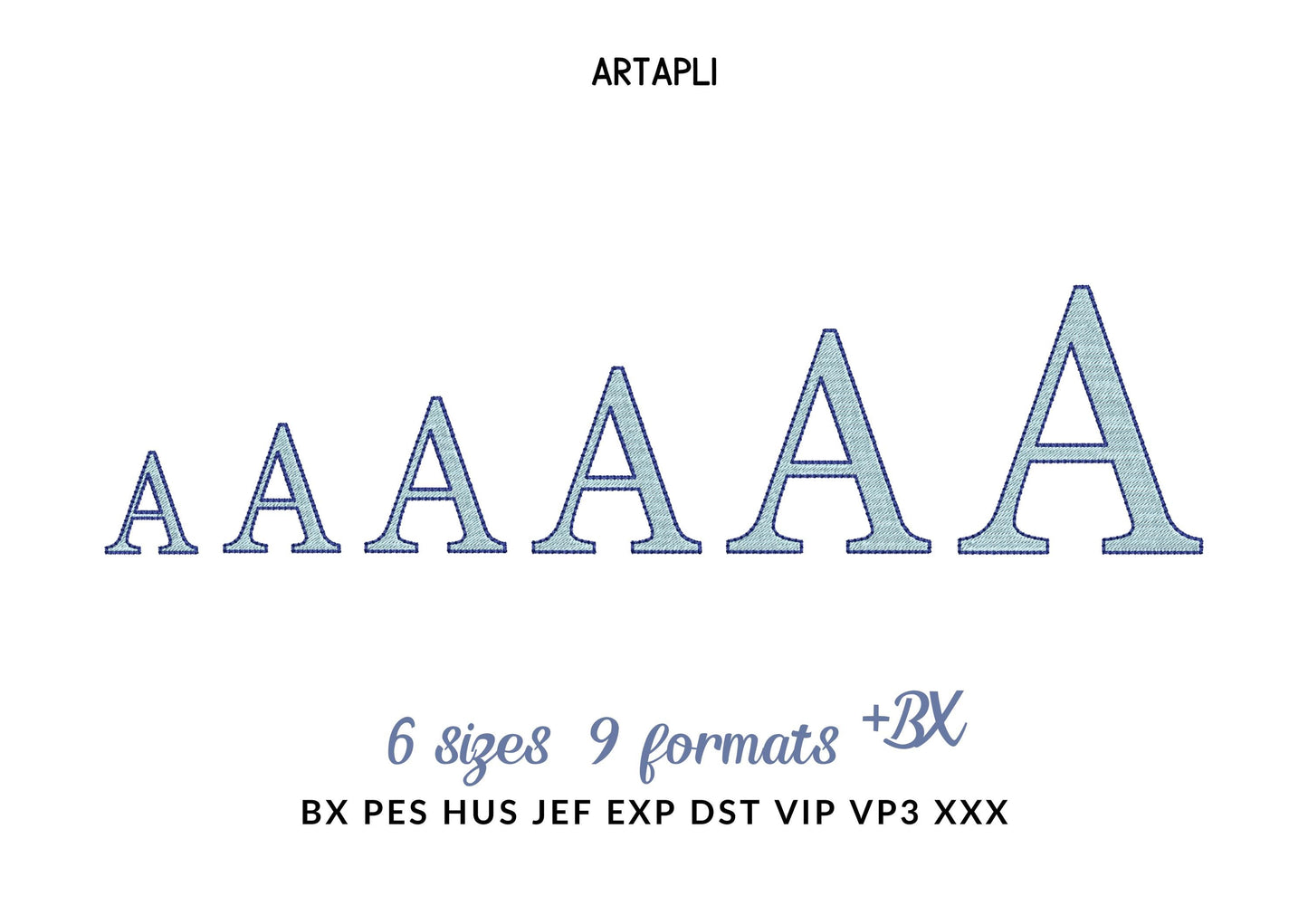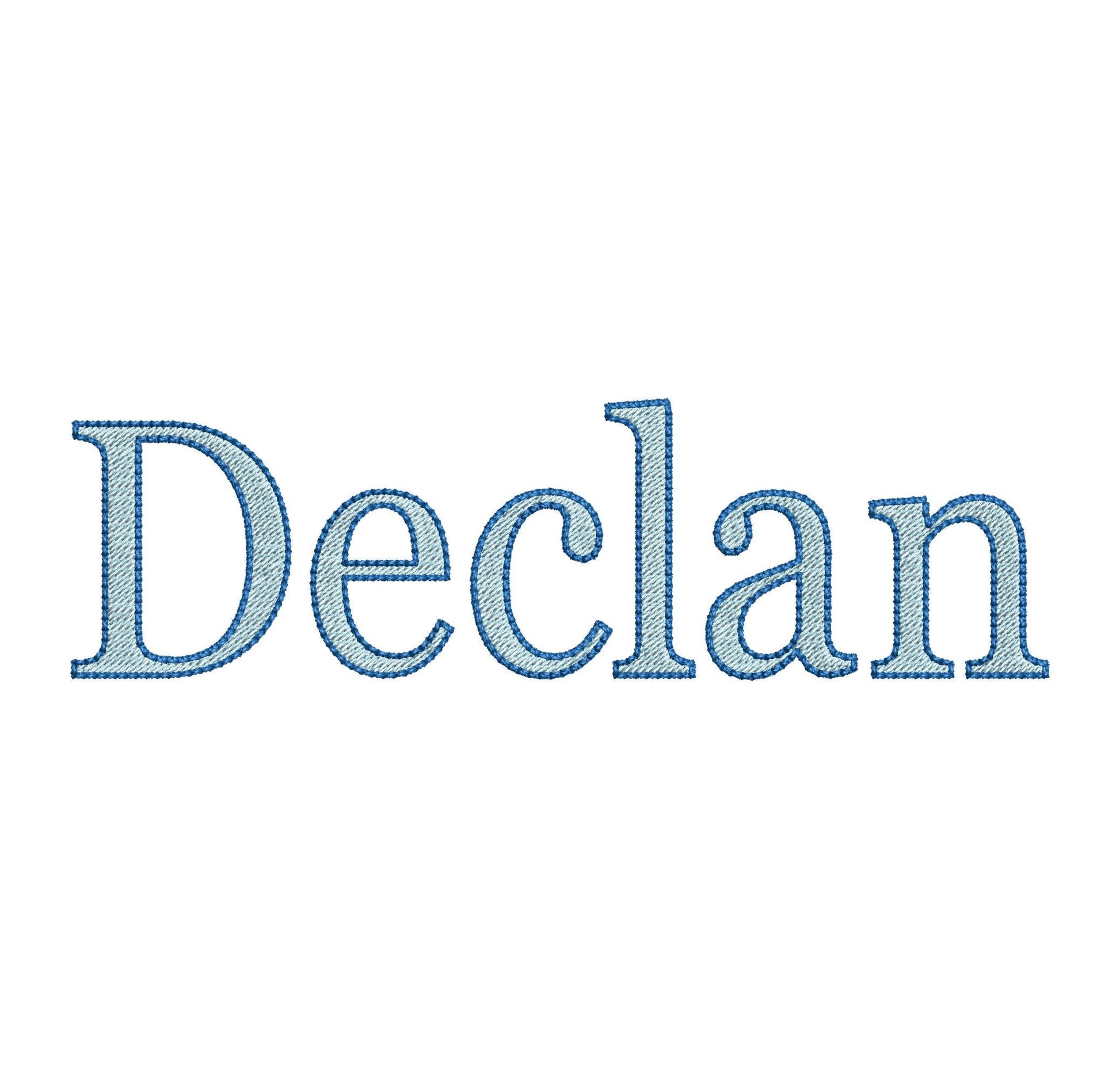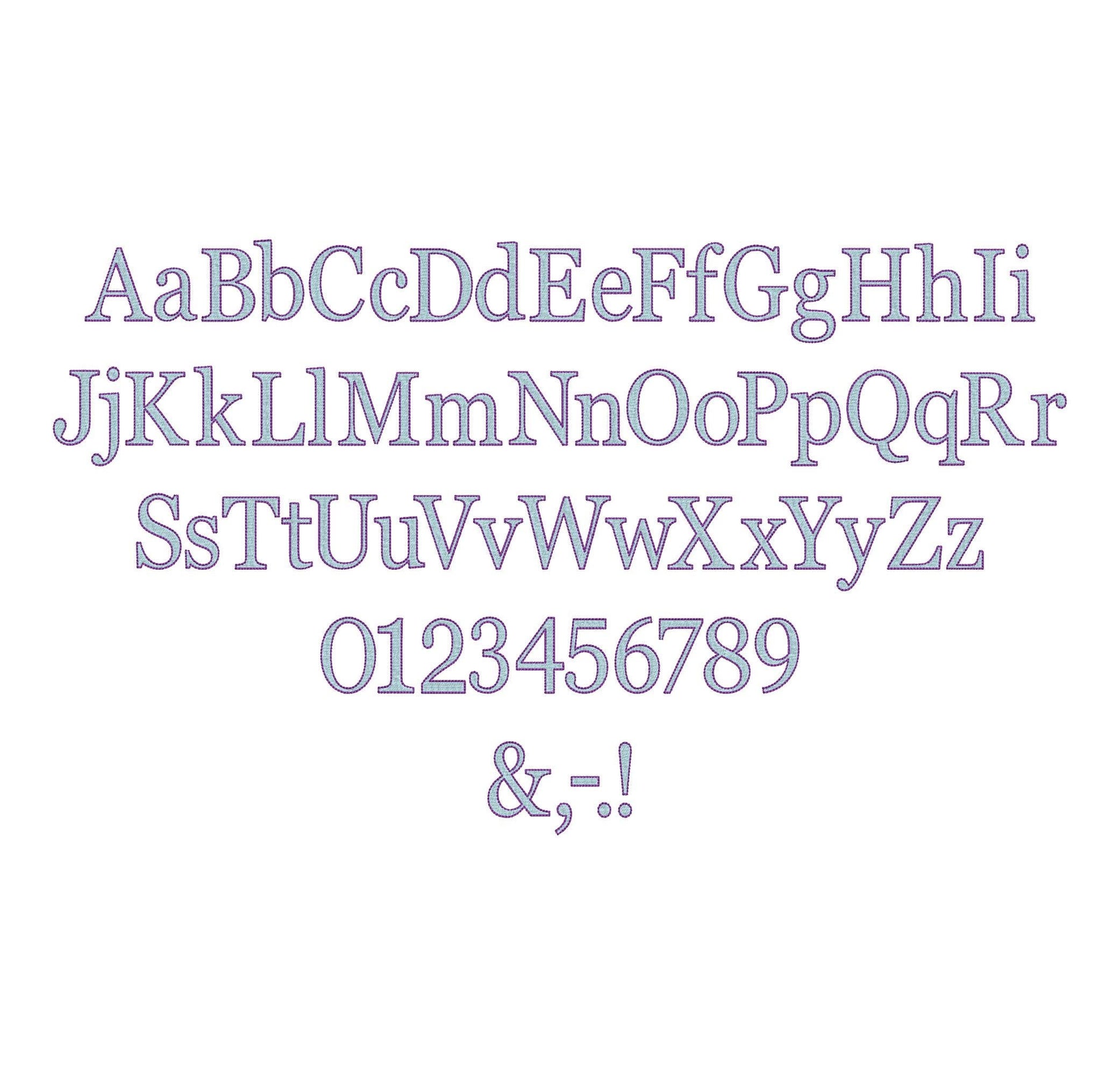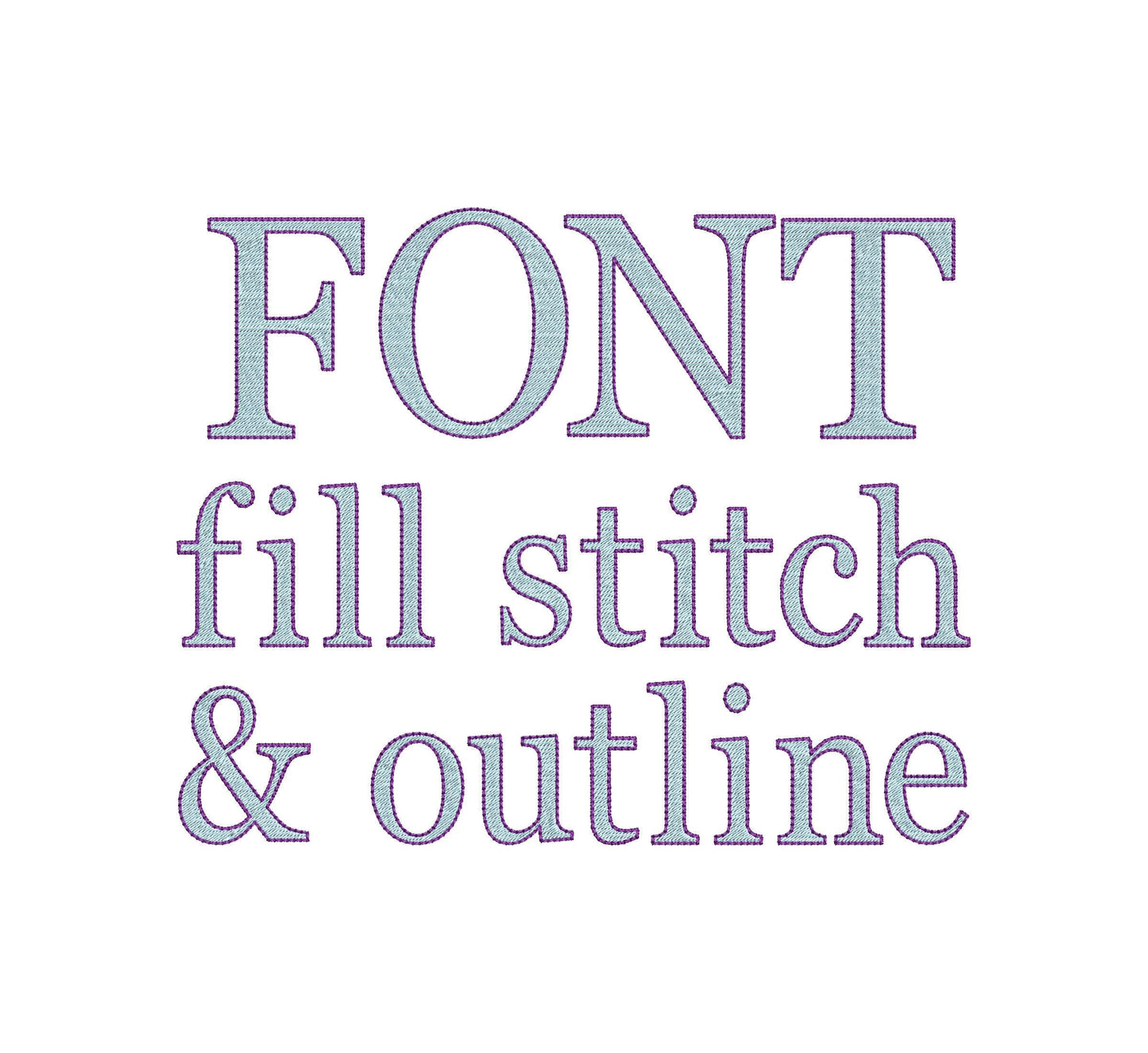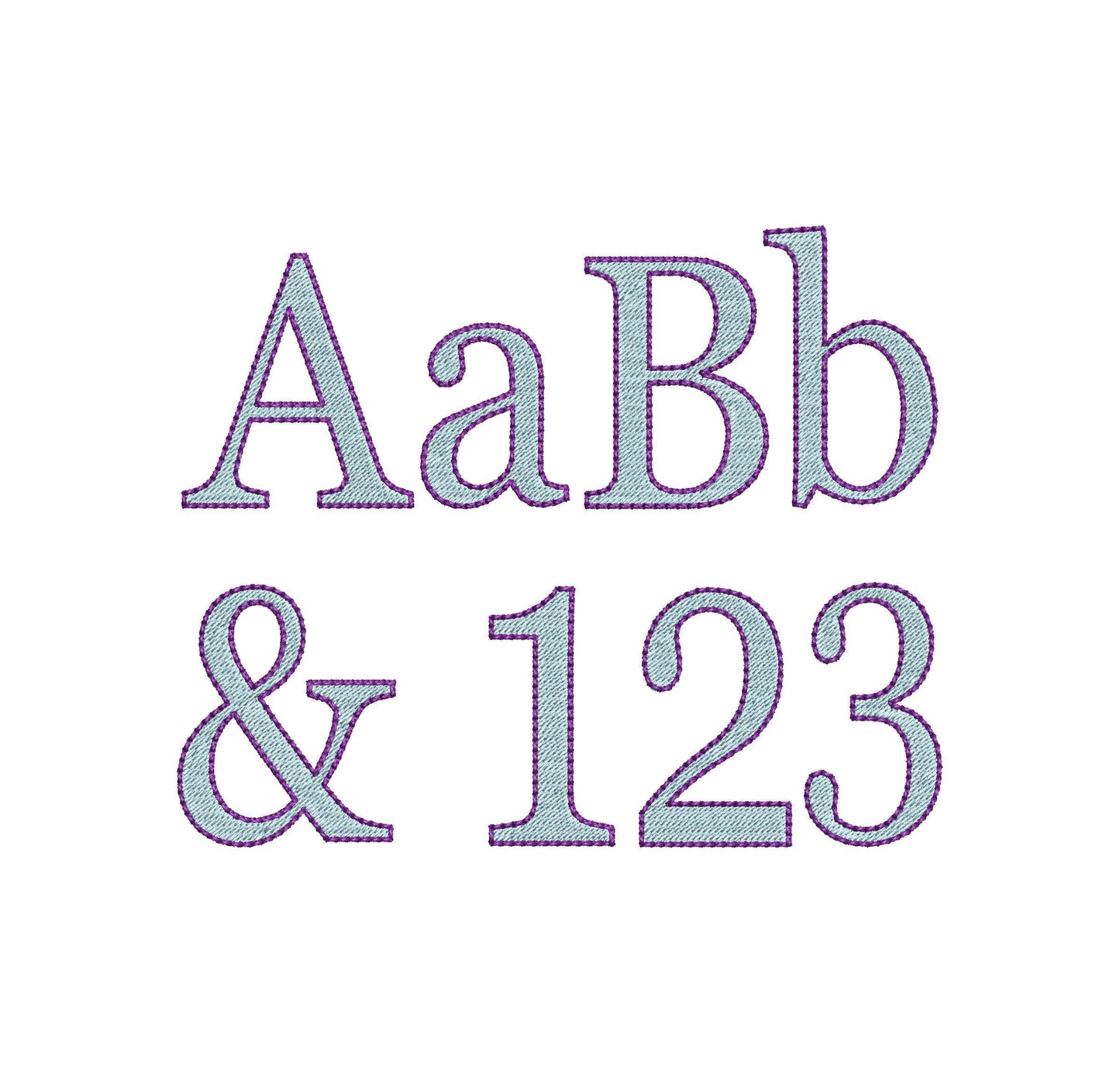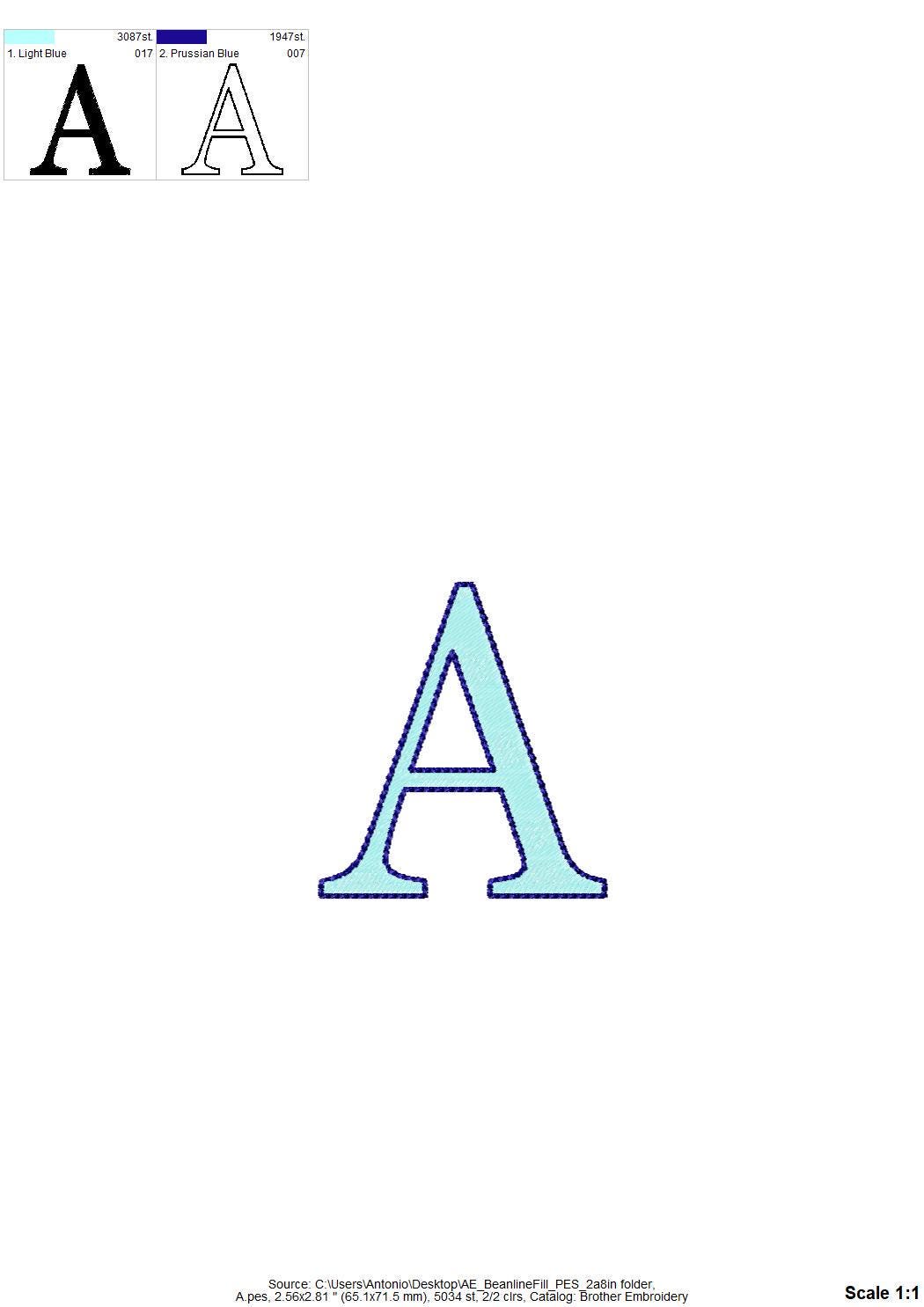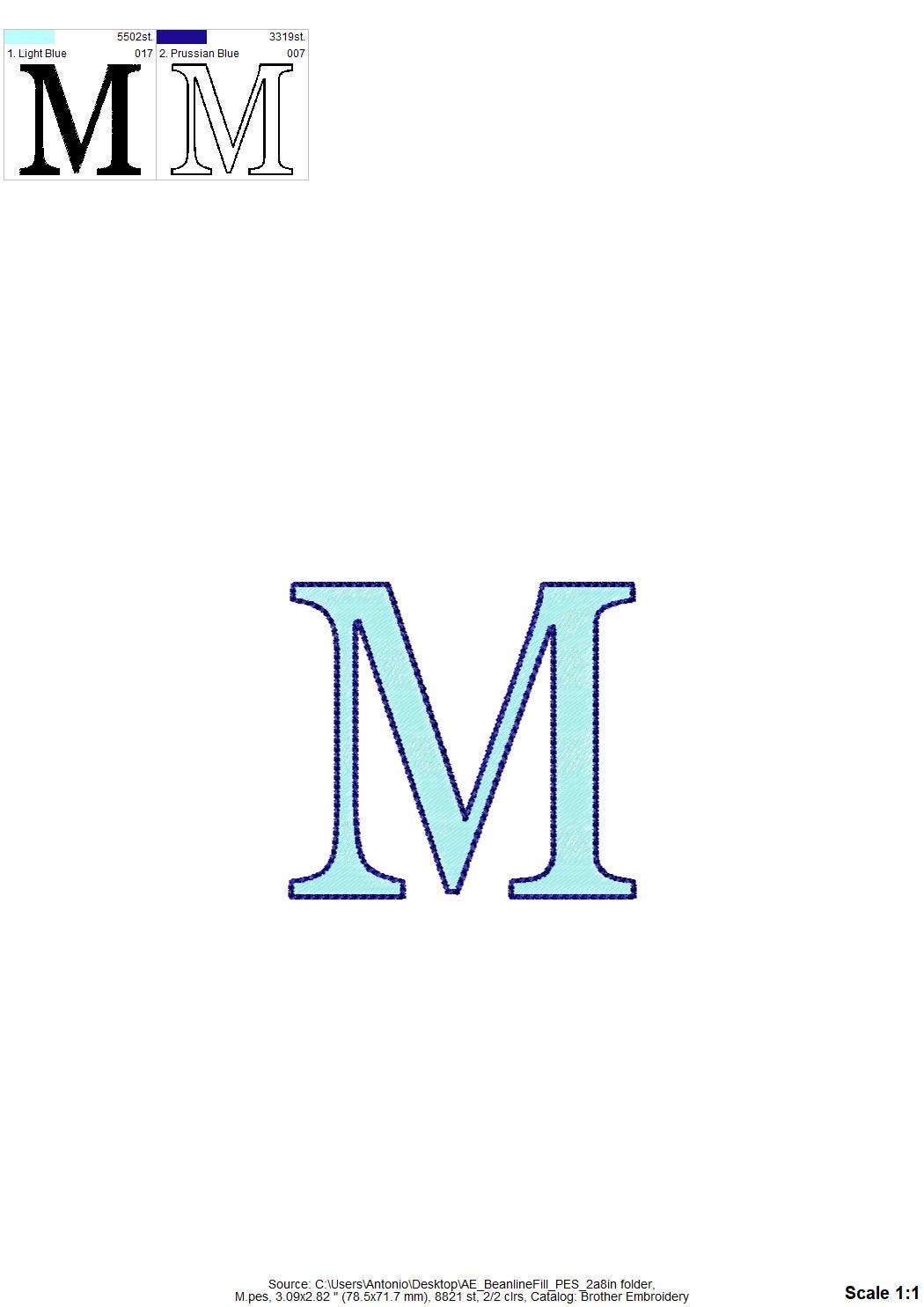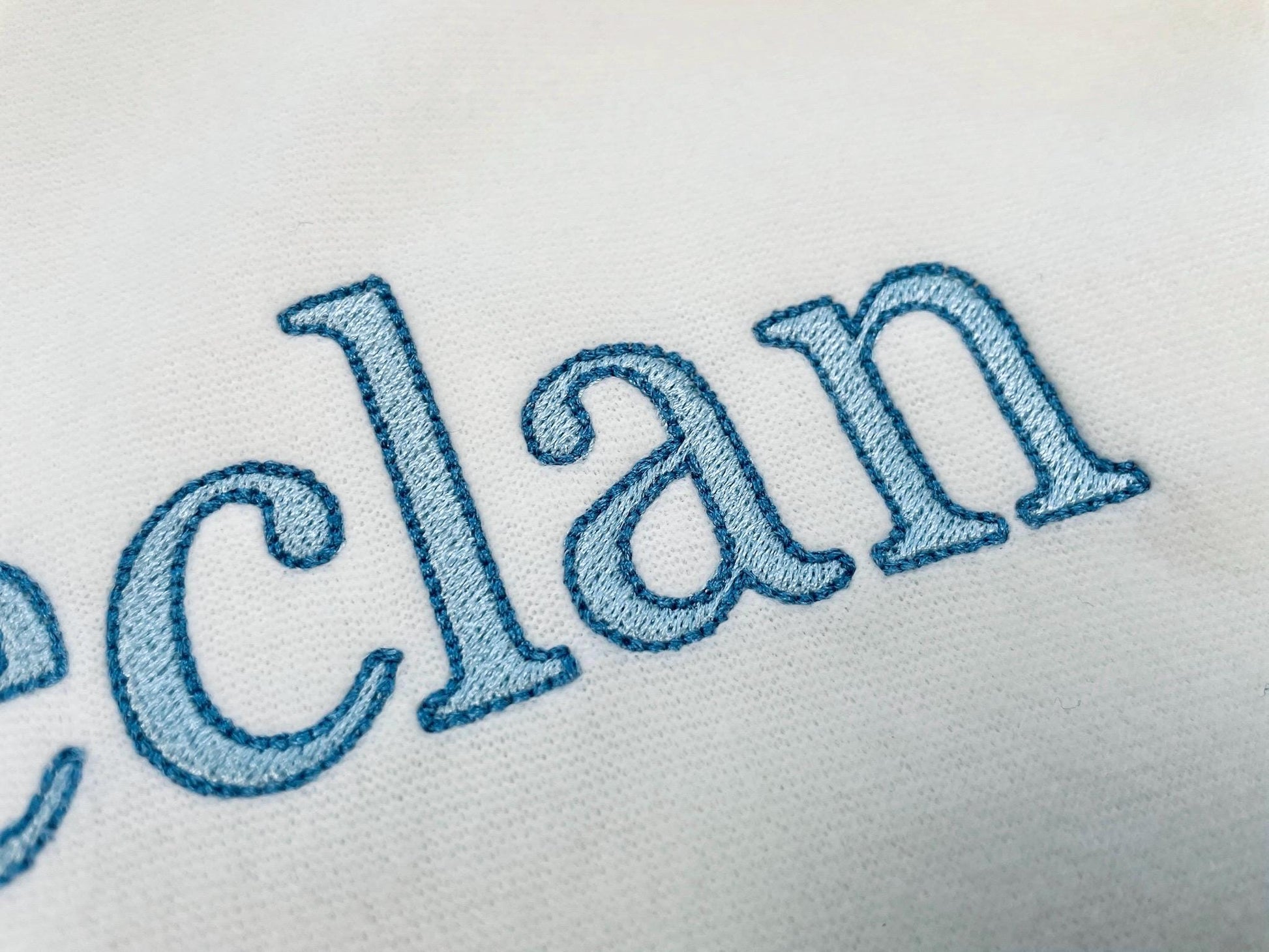
Block Font Fill Stitch and Bean Outline
Included: Uppercase A-Z, Lowercase a-z, Numbers 0-9, Punctuation
A clean block font in fill stitch with a bean stitch outline. Good for names, monograms, team shirts and bags.
The letters come in six sizes: 1.3, 1.6, 2, 2.4, 2.8 and 3.4 inches. Solid fill stitch letters framed by a bean stitch outline. Includes uppercase and lowercase letters A to Z, numbers 0 to 9 and punctuation.
• Fill stitch block font with bean stitch outline
• Uppercase and lowercase letters, numbers 0 to 9, punctuation
• 6 sizes, 1.3 to 3.4 in